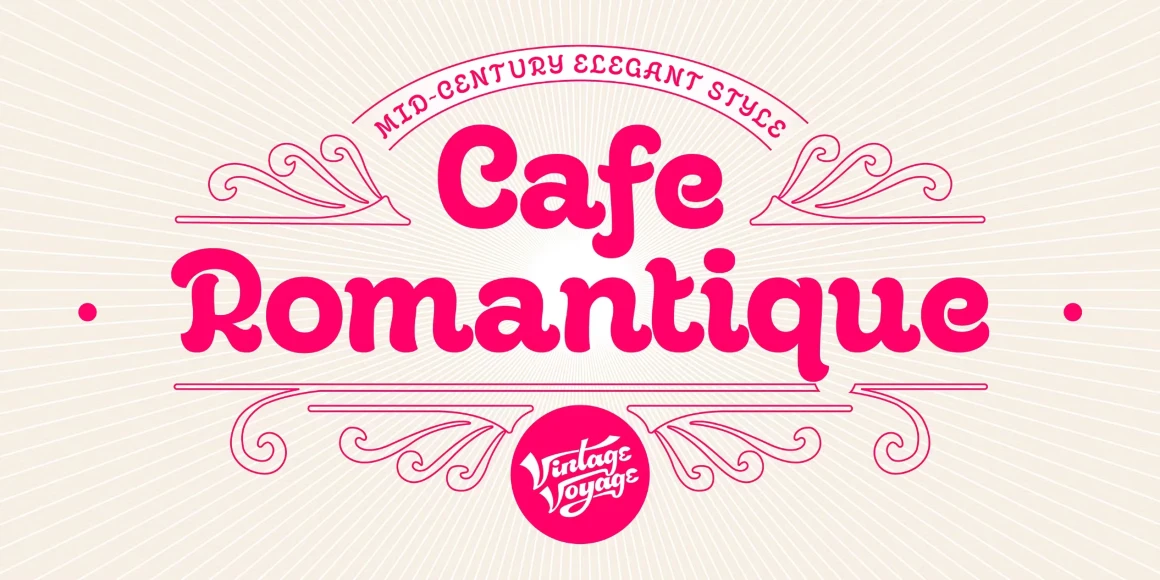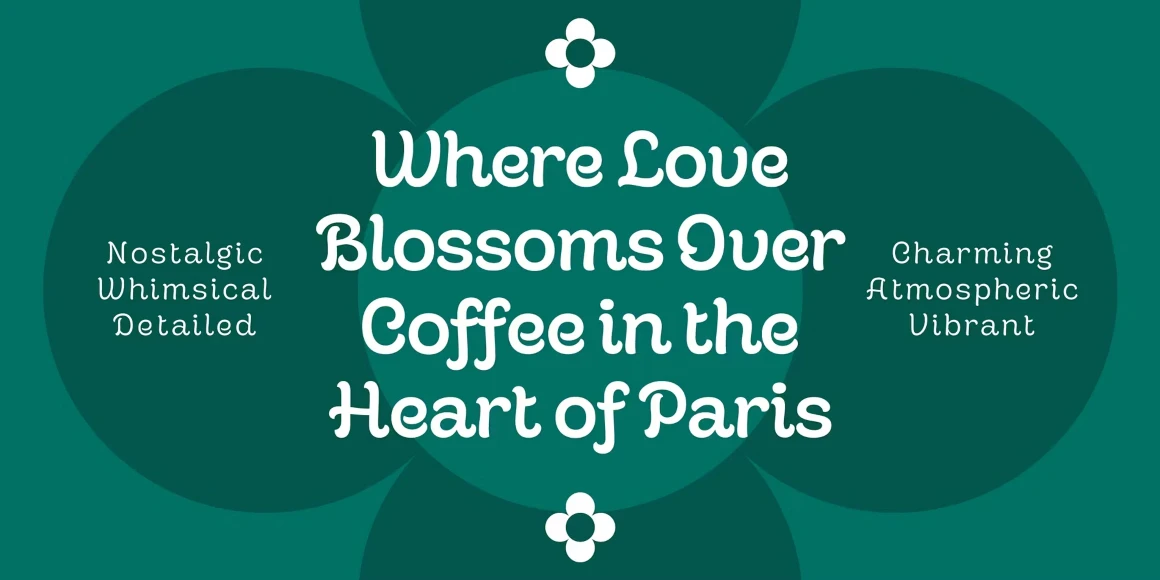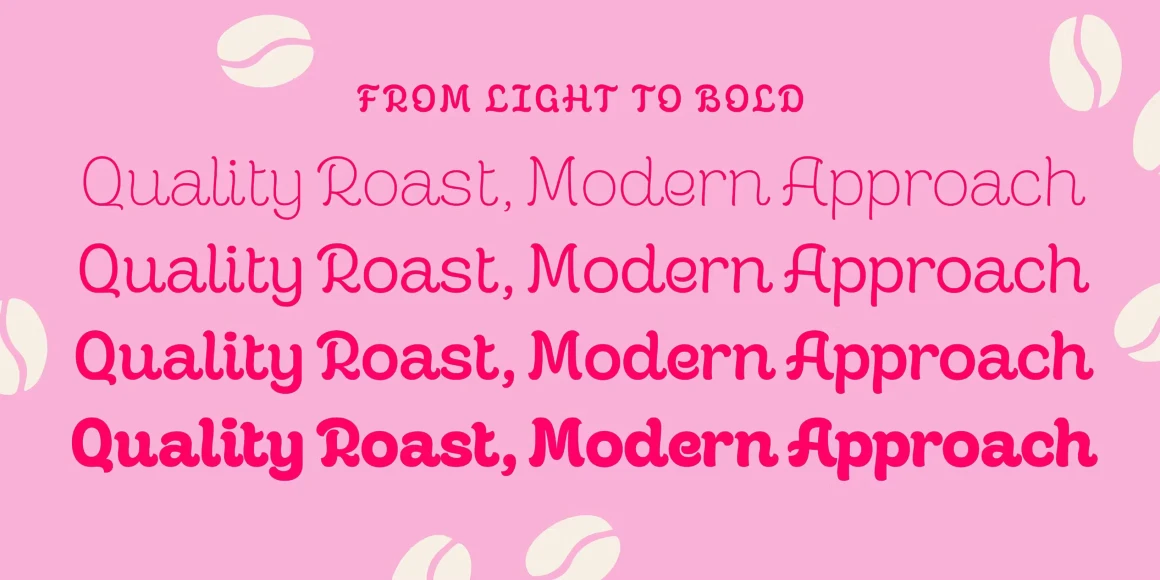
Cafe Romantique
Cafe Romantique is a charming take on an upright script. Pavel Korzhenko designed it for branding a cozy Parisian café one might find while strolling in Saint Germain de Pres or for packaging handmade caramelle that only an Italian Nonna could make. With all its curves and swash-like strokes, it is ideal for display typography, but because of the open shapes, it works well in smaller text, too! Available in four distinct weights — Light, Regular, Medium, and Bold — or as a variable font.